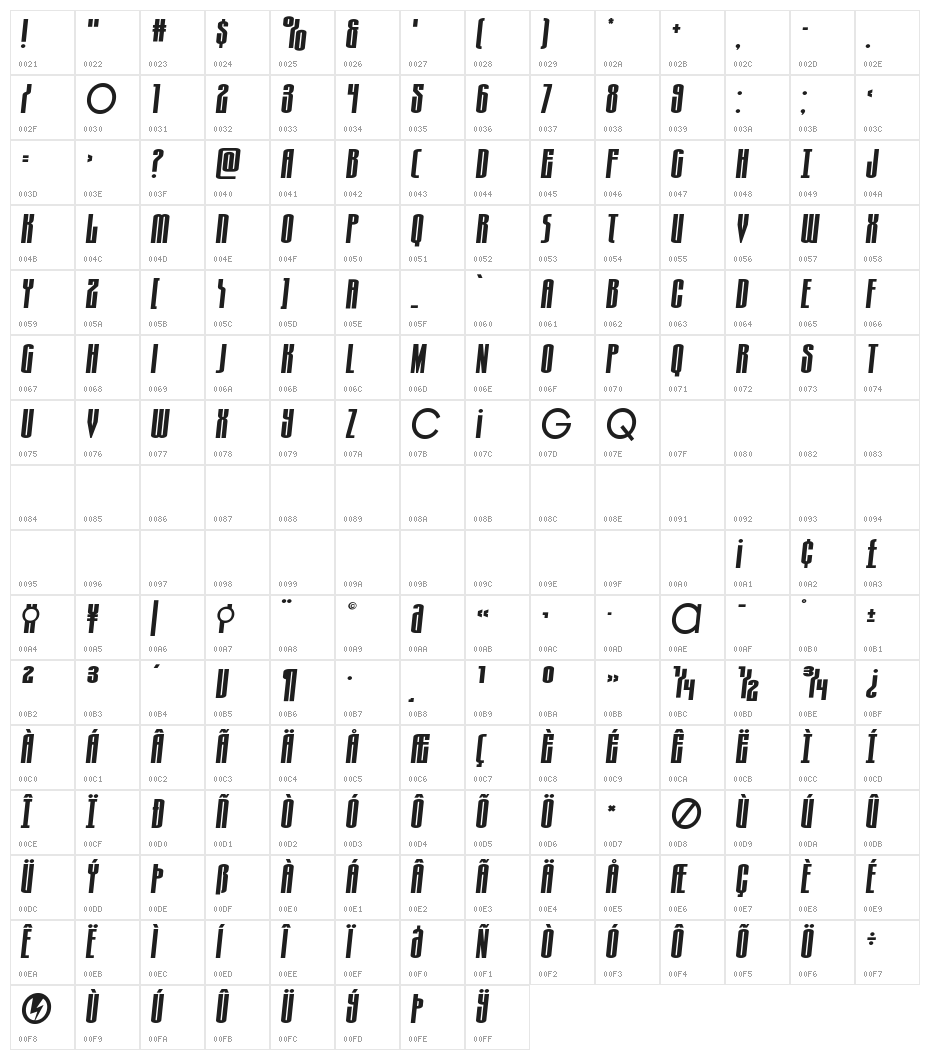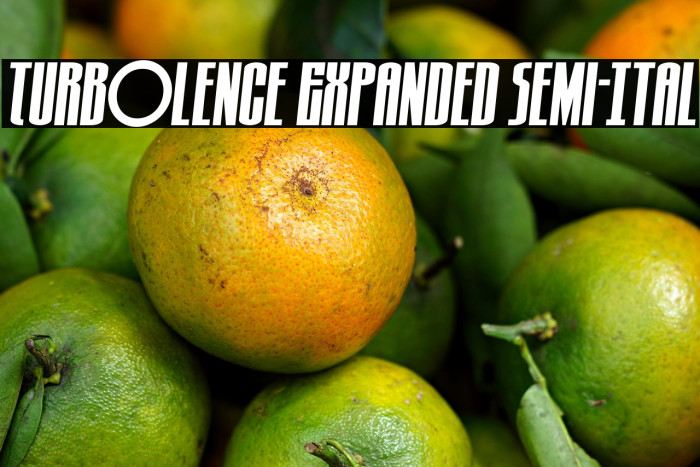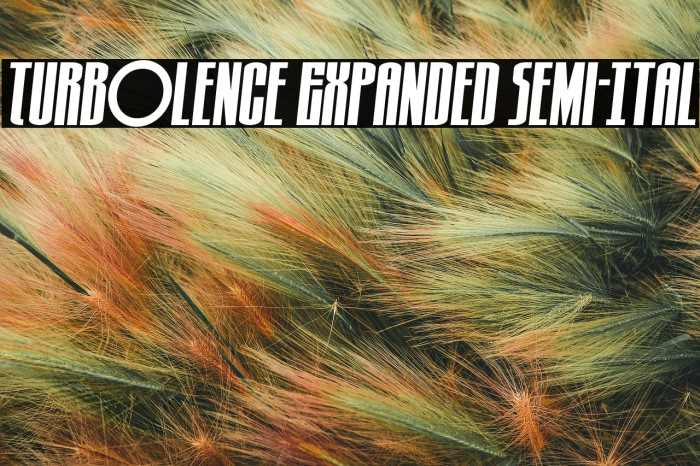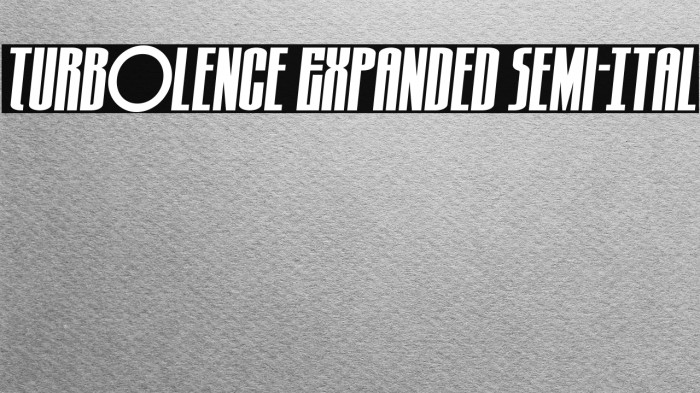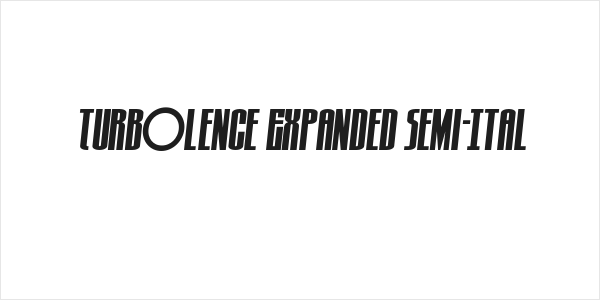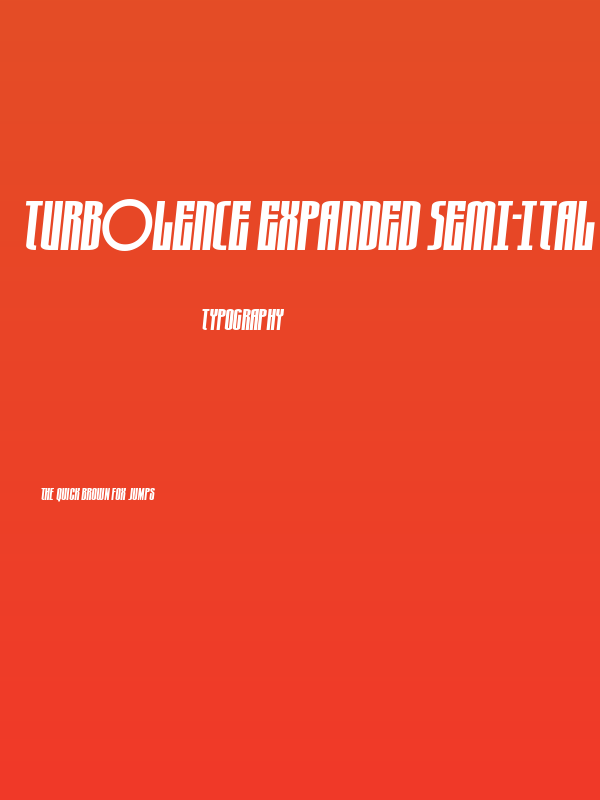
Turb0lence Expanded Semi-Ital Font
Turb0lence Expanded Semi-Ital Description
This font exhibits a bold and dynamic style with an expanded width and semi-italic slant. The characters are tall and narrow, featuring sharp angles and a modern aesthetic. The uppercase letters are particularly striking, with a strong presence that commands attention. The numbers and special characters maintain the same boldness and angular design, ensuring consistency across all glyphs. This typeface is designed to make a statement, ideal for projects that require a strong visual impact.
| Proposed Projects | Ideal for branding, headlines, posters, and any design project that requires a strong, impactful typeface. |